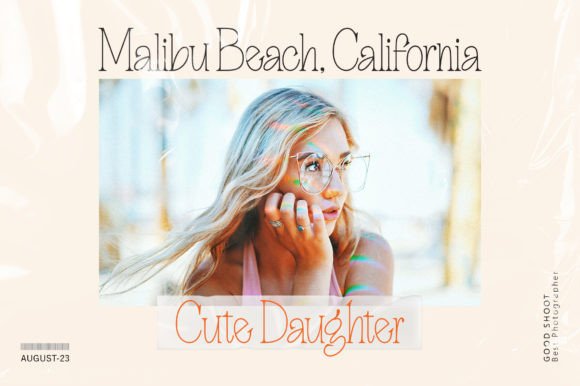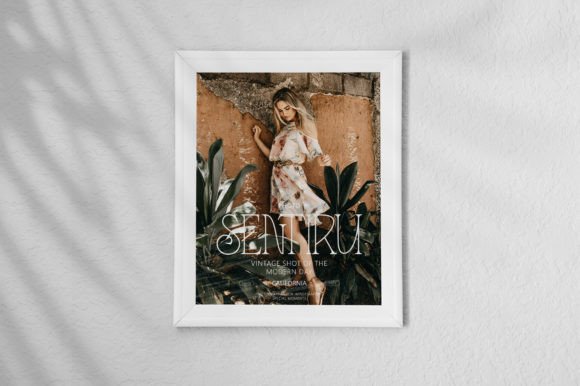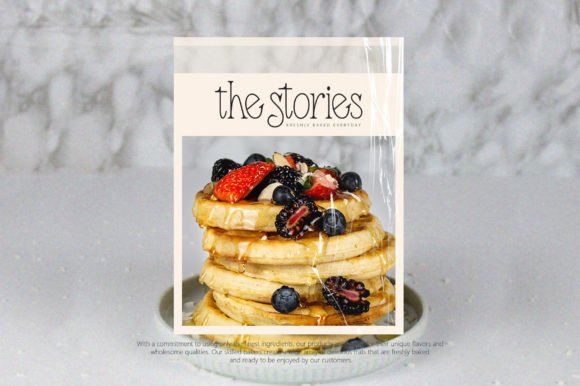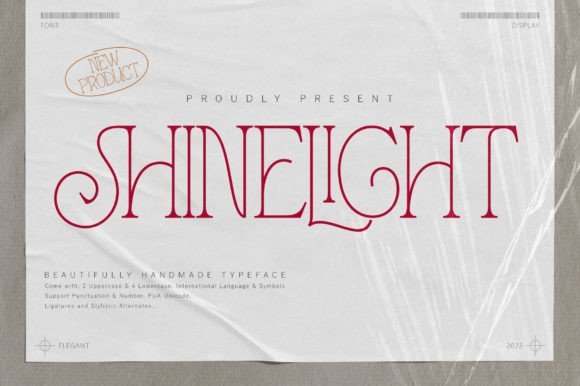
Introduction to Shinelight Font
Shinelight is a beautiful serif font that is suitable for branding, wedding invitations, greeting cards, posters, name card, quotes, blog header, logo, fashion, apparel, letter, stationery and other projects.
Key Features of Shinelight Font
Why Choose Shinelight Font?
Shinelight Font offers exceptional quality and versatility, making it a valuable addition to your design toolkit. Whether you’re creating for personal projects or commercial use, Shinelight Font delivers professional results.